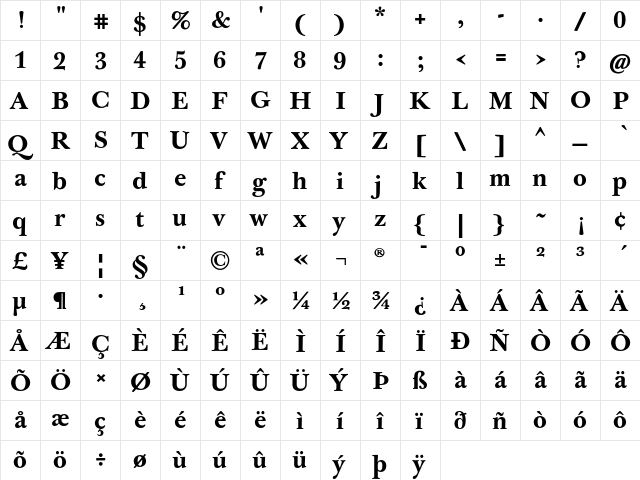
J Baskerville TxN Bold
Design Context for J Baskerville TxN Typeface
J Baskerville TxN takes a measured approach to typography — its balanced proportions and neutral character make it a reliable workhorse for both digital and print work. Its bold stroke weight gives it real presence on the page.
Pro Tip: Pair J Baskerville TxN with a font of contrasting weight or personality to build a more expressive typographic hierarchy.